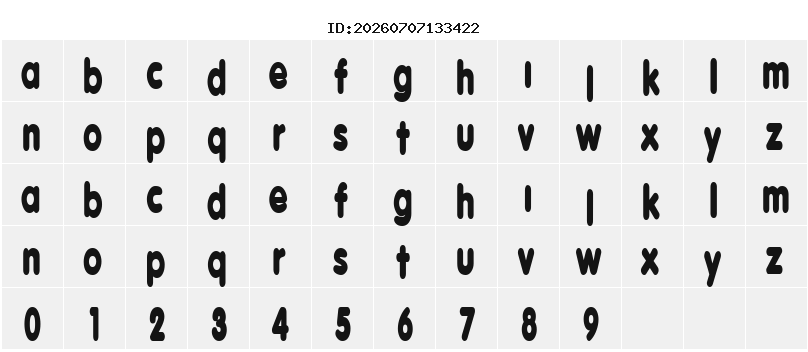
Deceit Preview
• Font Name: Deceit
• Full Font Name: Deceit
• PostScript Name: Deceit
About Deceit.ttf
Deceit.ttf is a modern, elegant sans-serif font designed for ultimate readability and visual harmony. Perfect for branding, headlines, web design, and print materials.